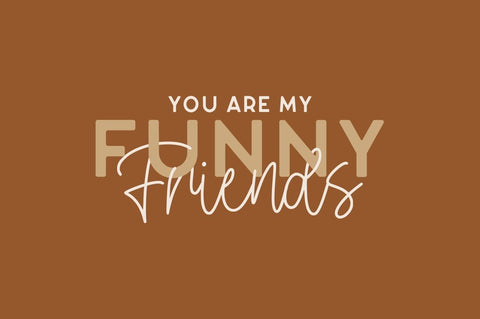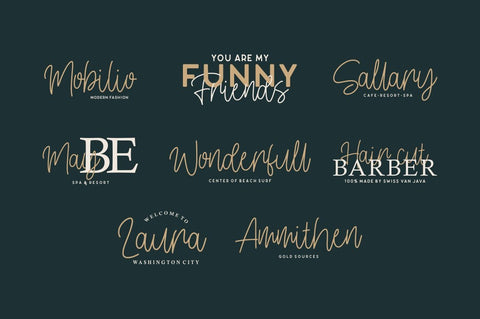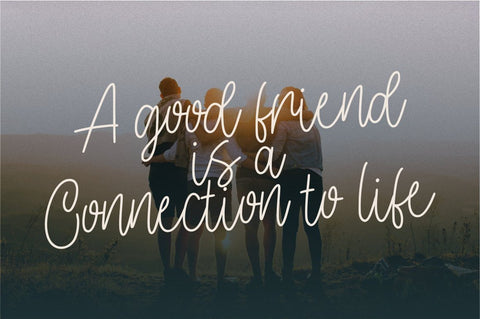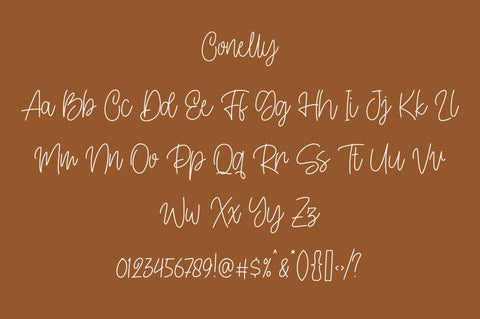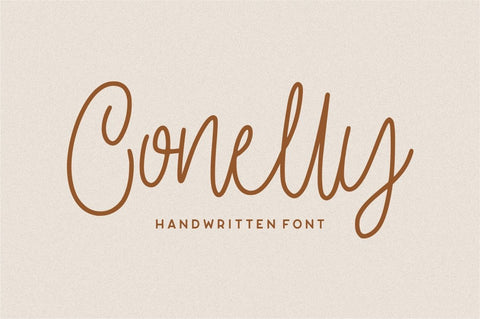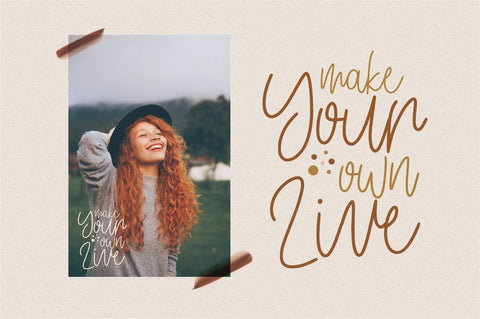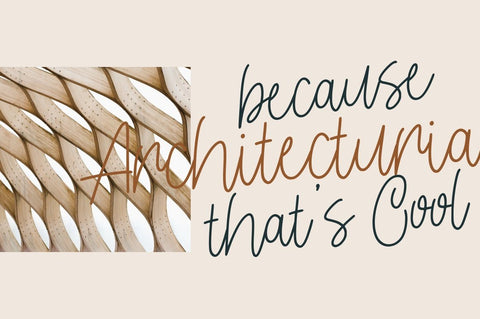
Conelly – Handwritten Font
Introducing Conelly – Handwritten Font
Conelly – Handwritten Font is a natural & modern handwritten font. I’ts Perfect for logo, invitation, stationery, wedding designs, social media posts, advertisements, product packaging, product designs, label, photography, watermark, special events or anything.
- Very great for branding, logotype, handletteing, invitations, or fashion branding.